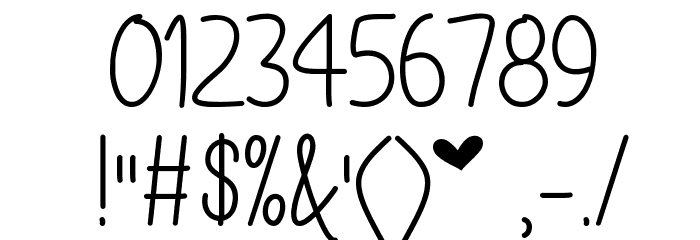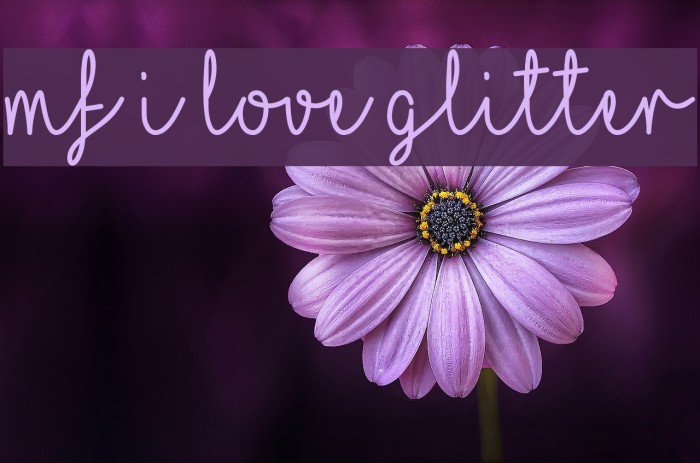
Mf I Love Glitter Font
This font features a playful and whimsical handwritten style, characterized by its flowing, connected letters that mimic cursive handwriting. The strokes are smooth and consistent, giving it a casual and friendly appearance. The lowercase letters are particularly rounded and feature loops that add to its charm. The numbers and special characters maintain the same handwritten aesthetic, ensuring a cohesive look across all characters. This font is perfect for projects that require a personal touch or a sense of informality.
A playful, handwritten cursive font with smooth, connected letters.
- Proposed Projects: Ideal for greeting cards, invitations, personal branding, and social media graphics.
- Overall Style: Casual
- Use Case: Logos, Invitations, Social Media Graphics